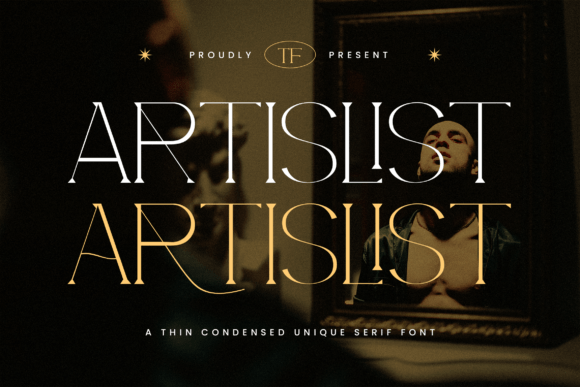
The Art of Elegance: Discovering the Artislist Font
I’ll never forget the time I was working on a fashion editorial project, and my client asked me to create a stunning cover that would make their brand stand out. I spent hours scouring the internet for the perfect font, but nothing seemed quite right. That was until I stumbled upon the Artislist font. Its sleek, refined design and elegant typography immediately caught my eye, and I knew I had found the perfect fit. In this article, I’ll share my experience with Artislist, and explore its features, uses, and alternatives.
What is Artislist Font?
Artislist is a thin condensed serif typeface designed for elegant typographic composition and clean visual hierarchy. Its narrow proportions and refined stroke contrast make it suitable for editorial layouts, posters, branding systems, and large headlines that require a distinctive yet readable presence.
- ✨ Elegant design: Artislist has a sleek and refined design that adds a touch of sophistication to any project.
- ✅ Multilingual support: The font features multilingual support, making it perfect for projects that require text in multiple languages.
- 💡 OpenType features: Artislist supports OpenType features, including ligatures, stylistic alternates, and swashes.
While Artislist is an excellent font, it’s not without its quirks. For example:
- ⚠️ Legibility at small sizes: Artislist is designed for display use, and its delicate details can become lost at small sizes.
- 🤔 Limited use in body text: While Artislist is perfect for headlines and titles, it’s not the best choice for body text due to its condensed design.
Artislist was designed with the goal of creating a font that would be both elegant and versatile. The designer drew inspiration from classic serif fonts, but with a modern twist. The result is a font that is both refined and distinctive.
Q: What is the best use for Artislist font?
A: Artislist is best used for display purposes, such as headlines, titles, and editorial layouts.
Q: Is Artislist font suitable for body text?
A: While Artislist can be used for body text, it’s not the best choice due to its condensed design.
Q: Does Artislist font support OpenType features?
A: Yes, Artislist supports OpenType features, including ligatures, stylistic alternates, and swashes.